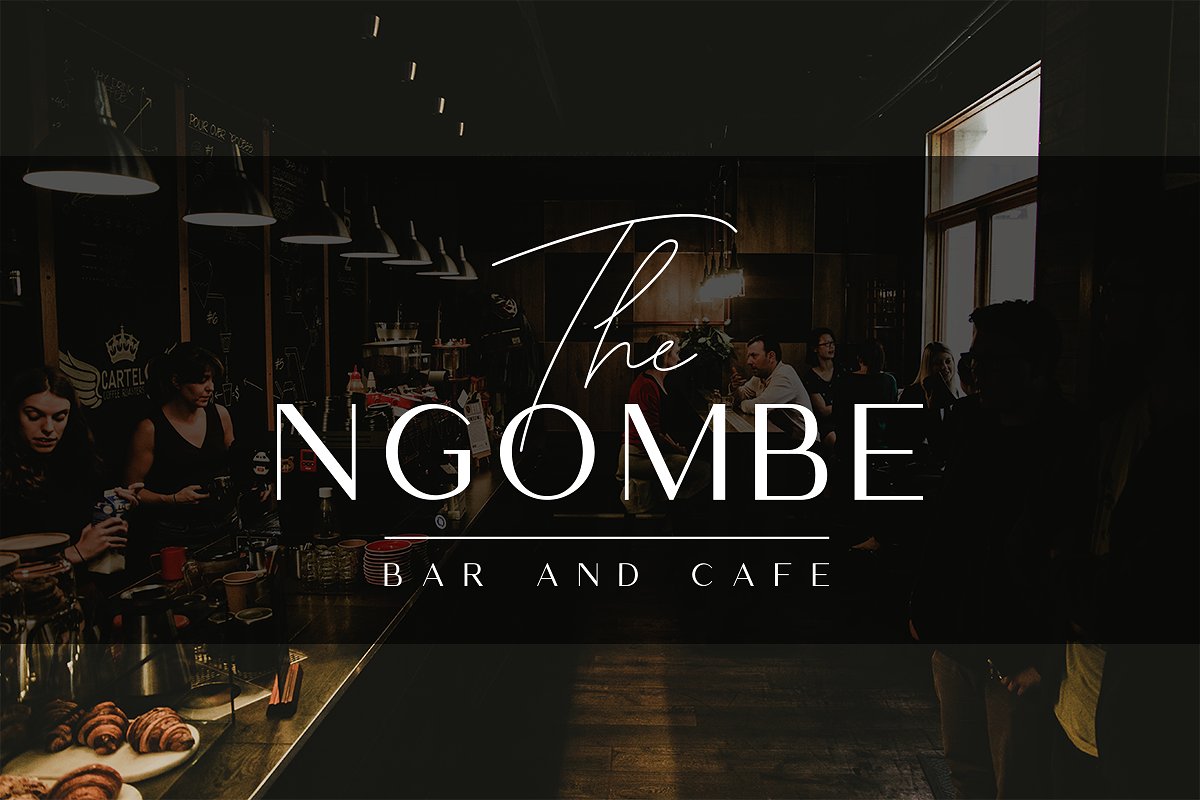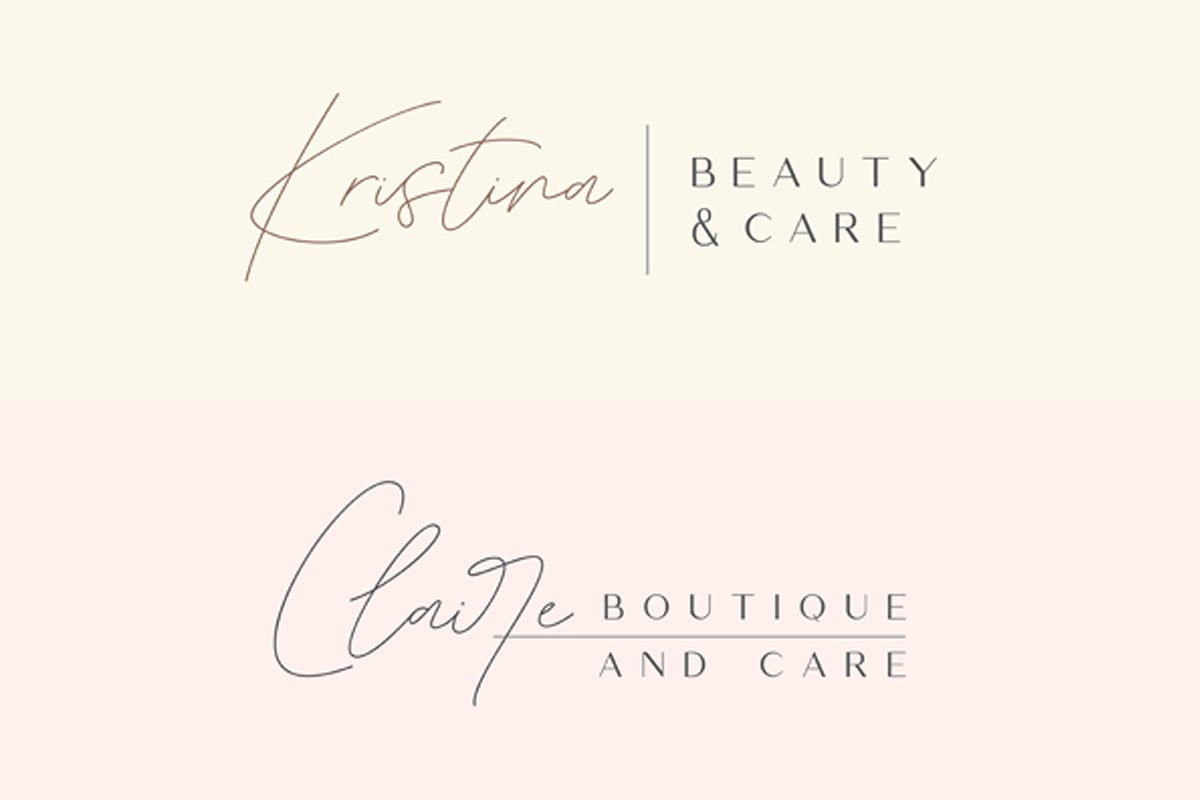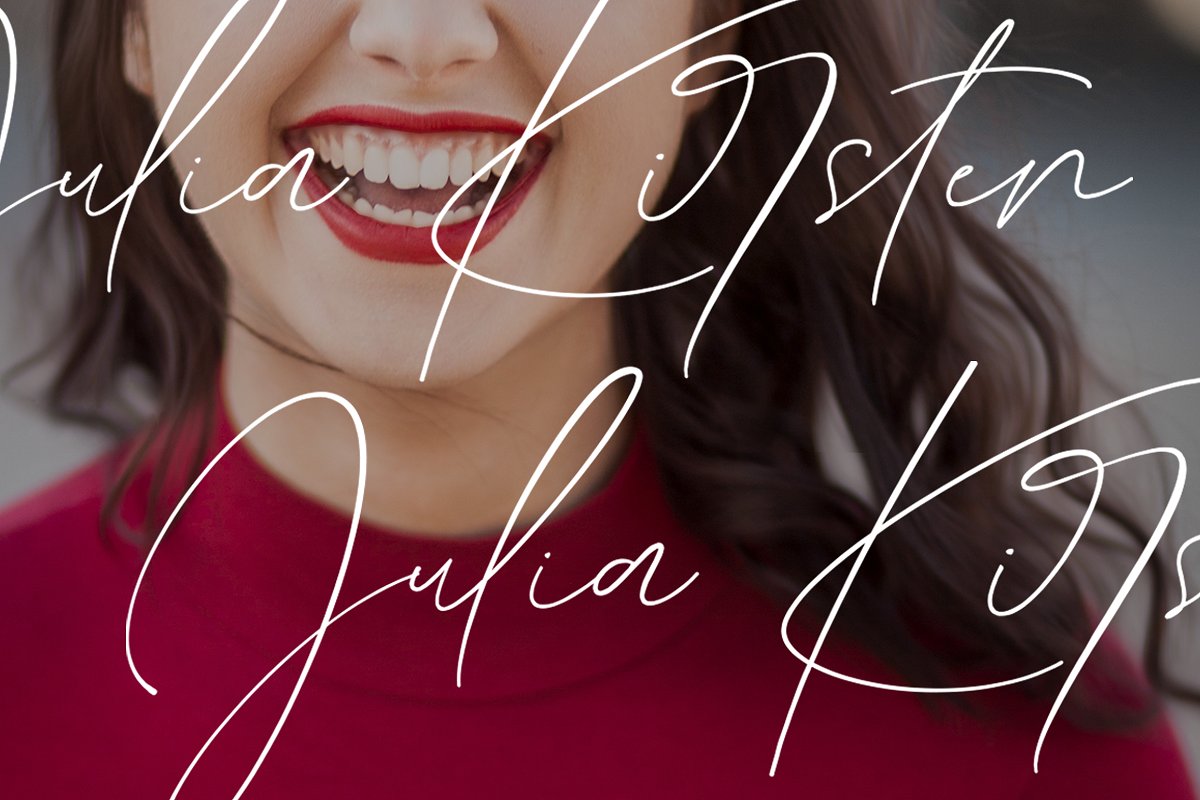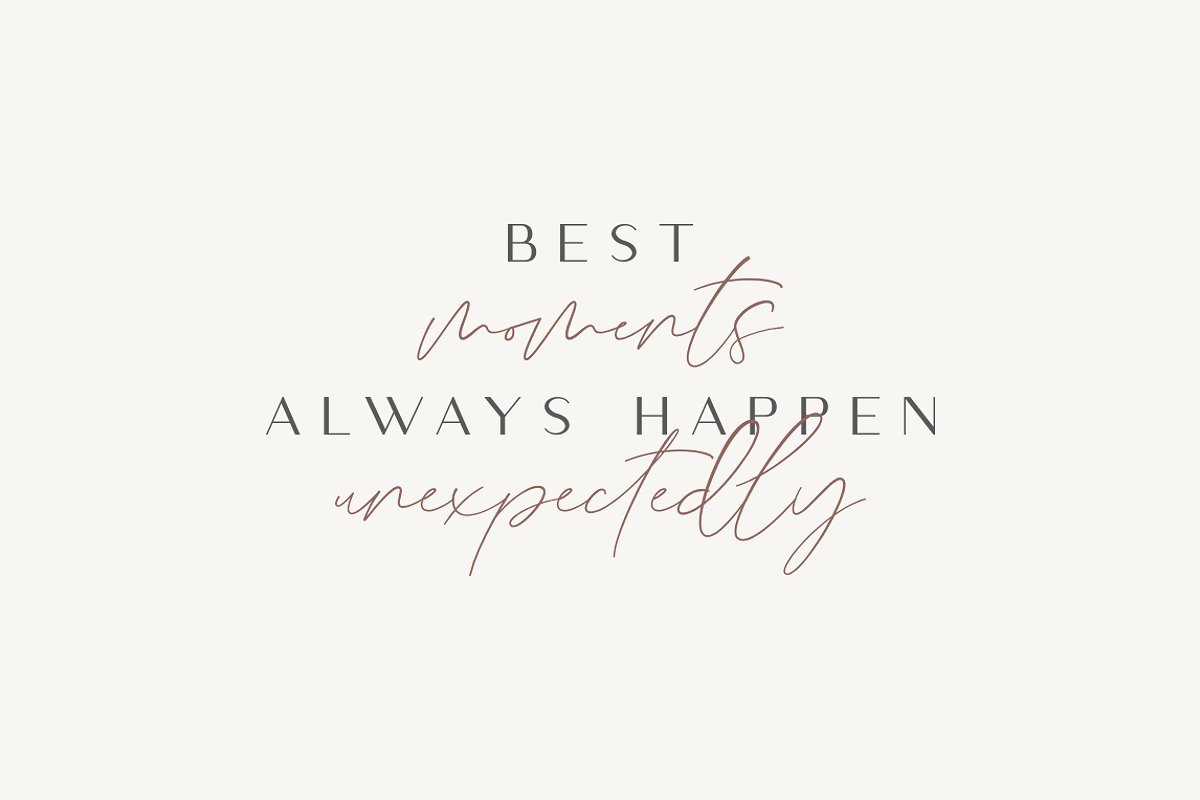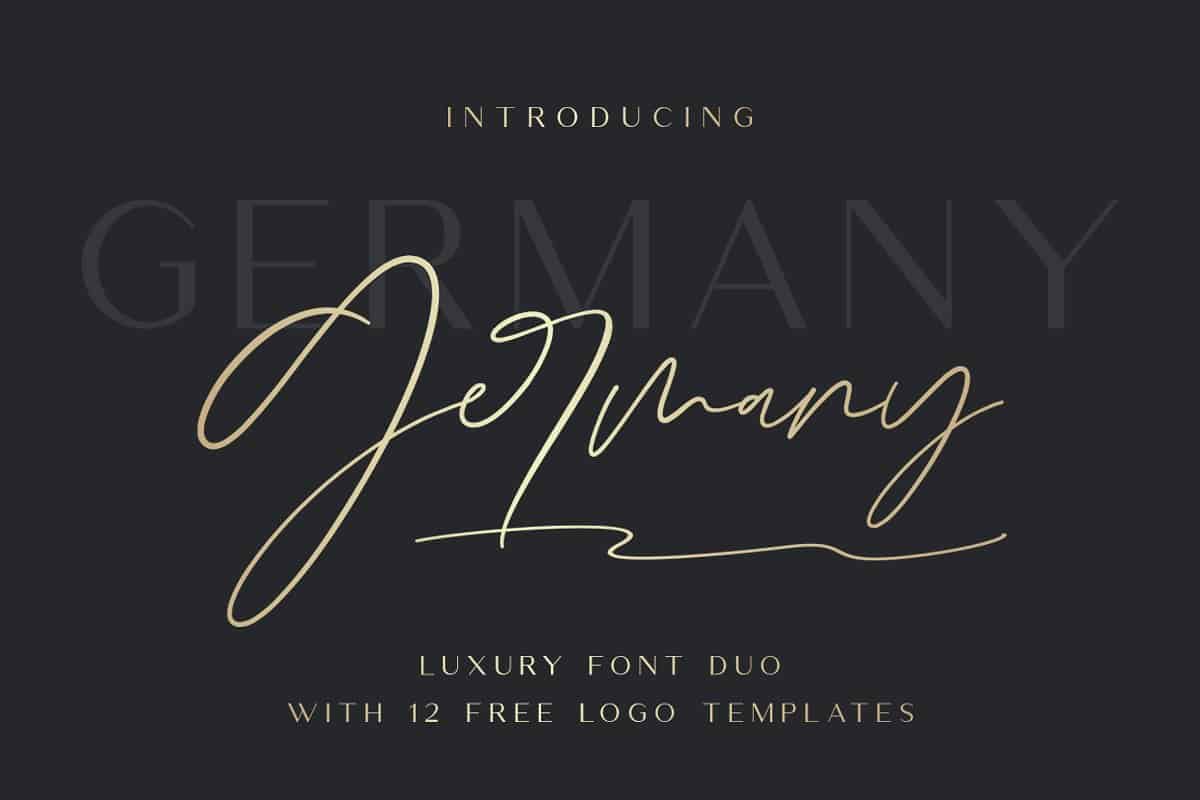
Germany Font Duo
This is signature handwritten. This font is for those who want to show something smooth and modern. You may use this font if you want to attract modern buyers. Introducing Germany Luxury Font Duo. Germany offers beautiful typographic harmony for a diversity of design projects, including logos & branding, wedding designs, social media posts, advertisements & product designs.
Germany also includes a set of 12 editable logo templates, each one uniquely combining the two Germany fonts to create striking, modern logo designs for you to edit and use as your own.